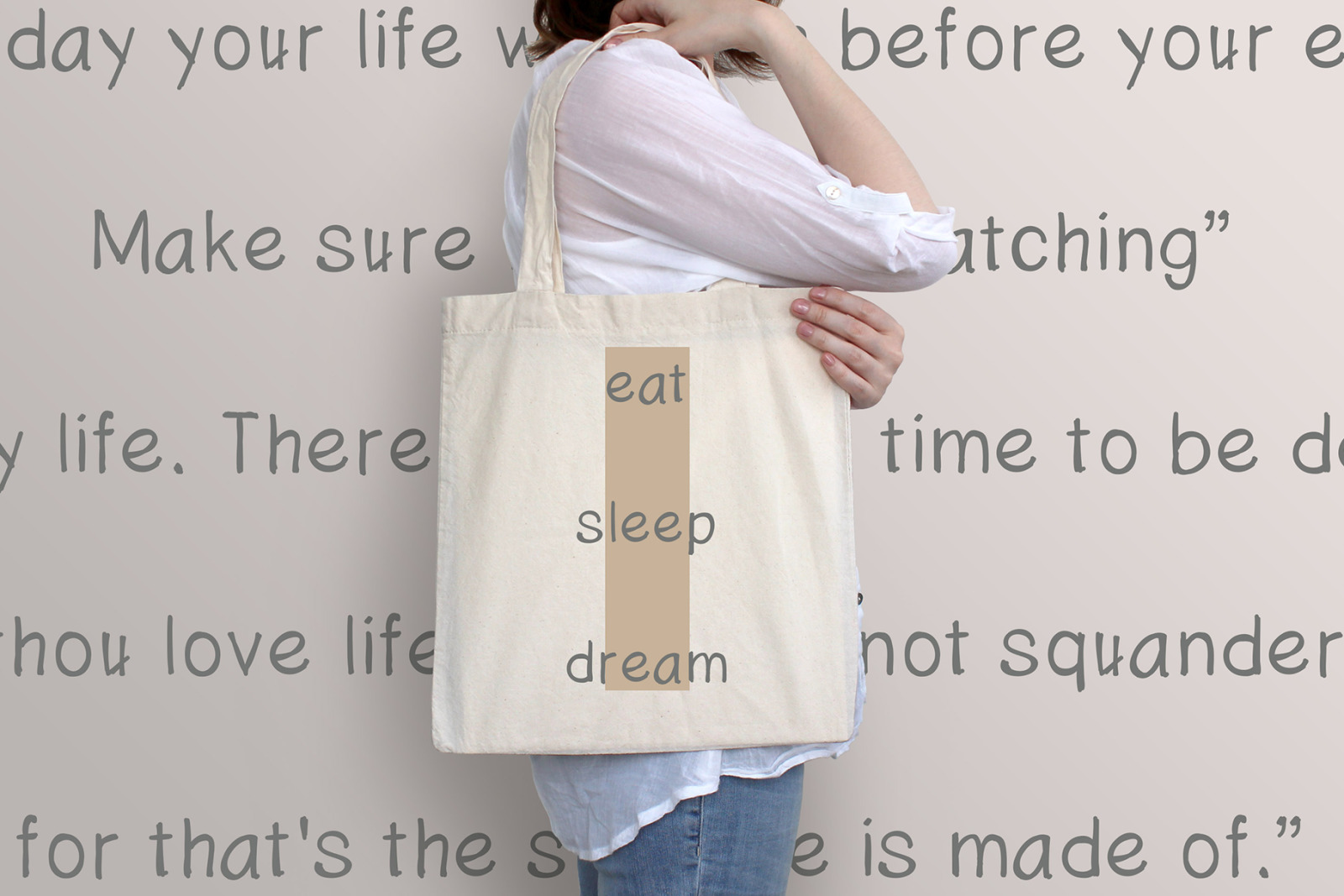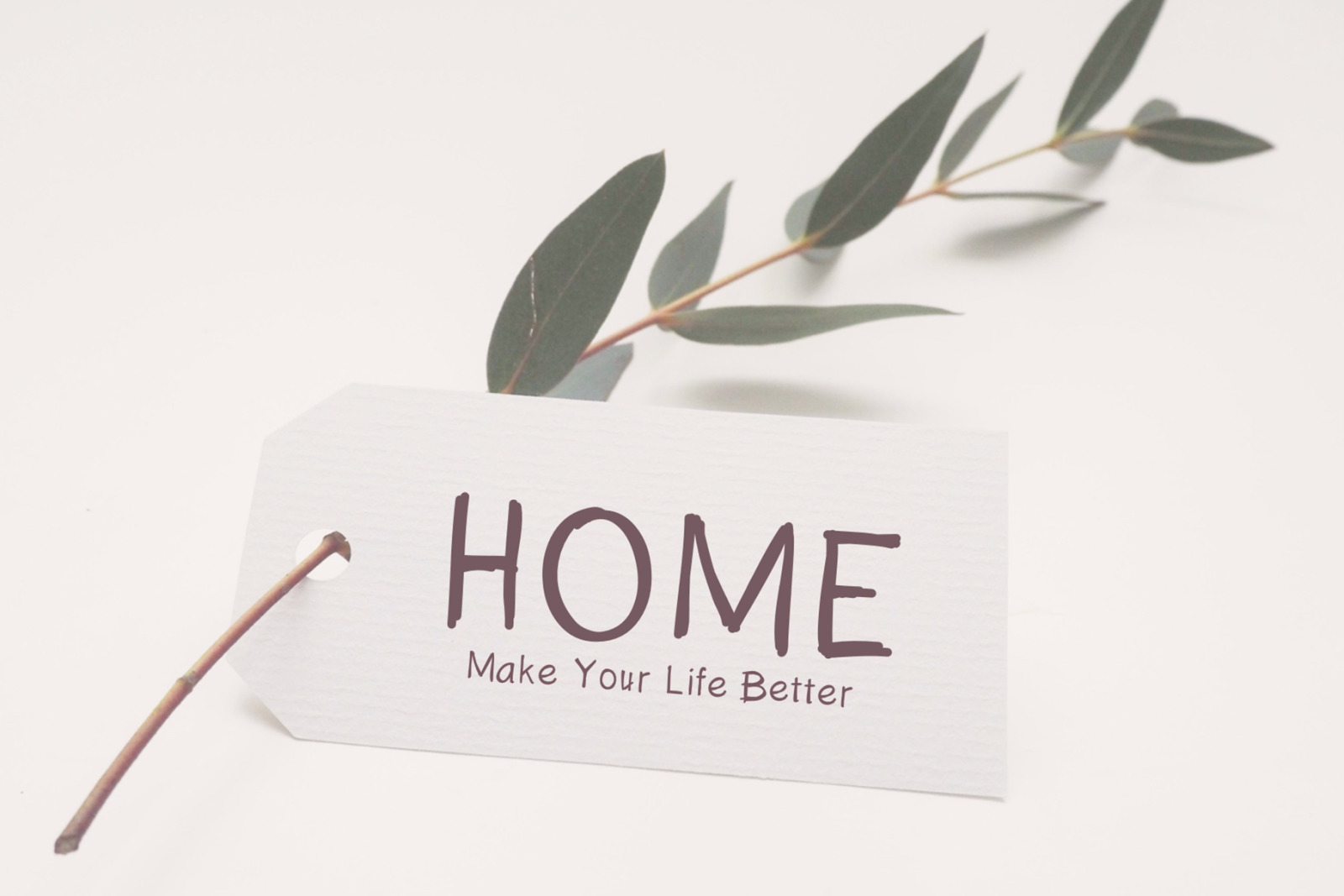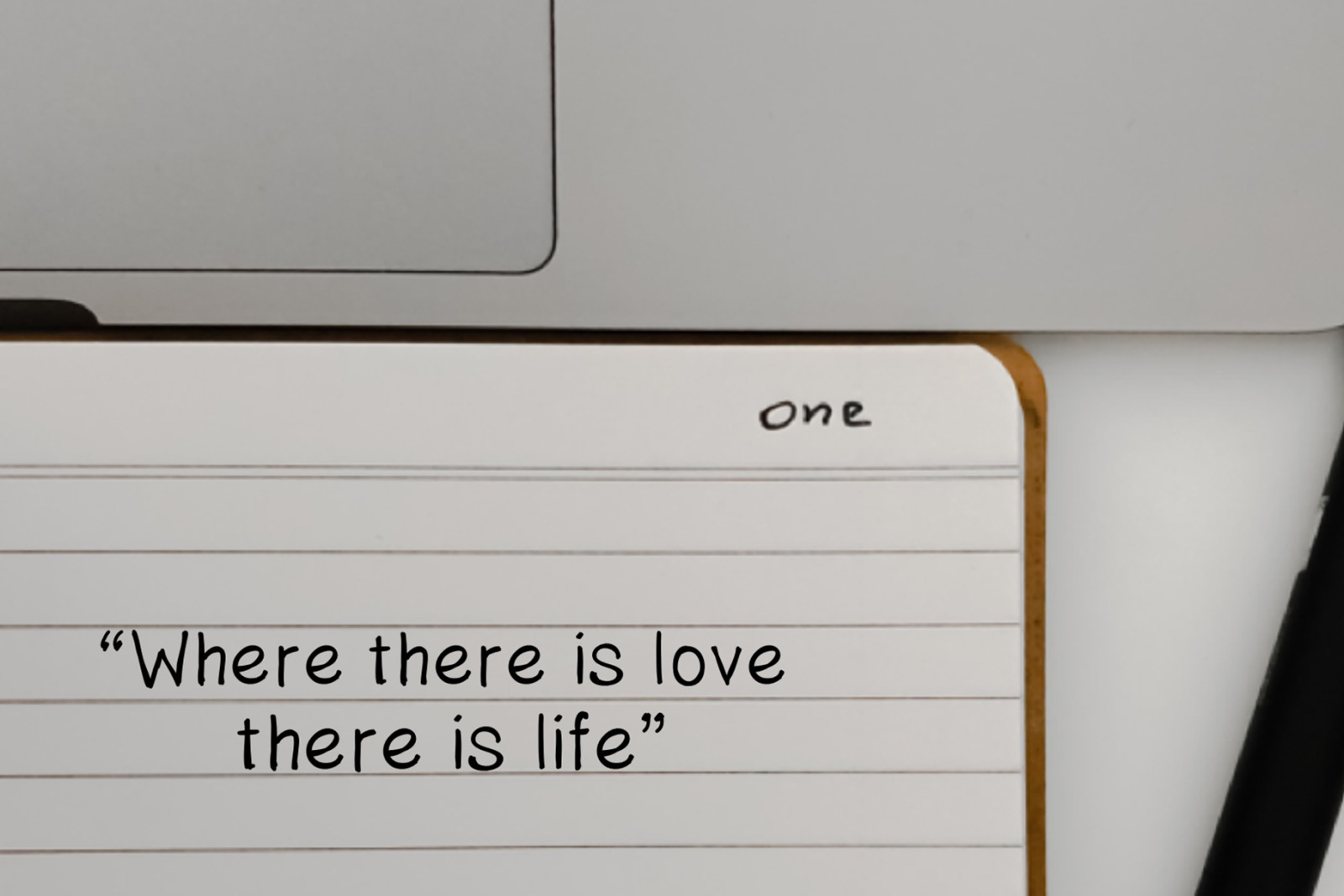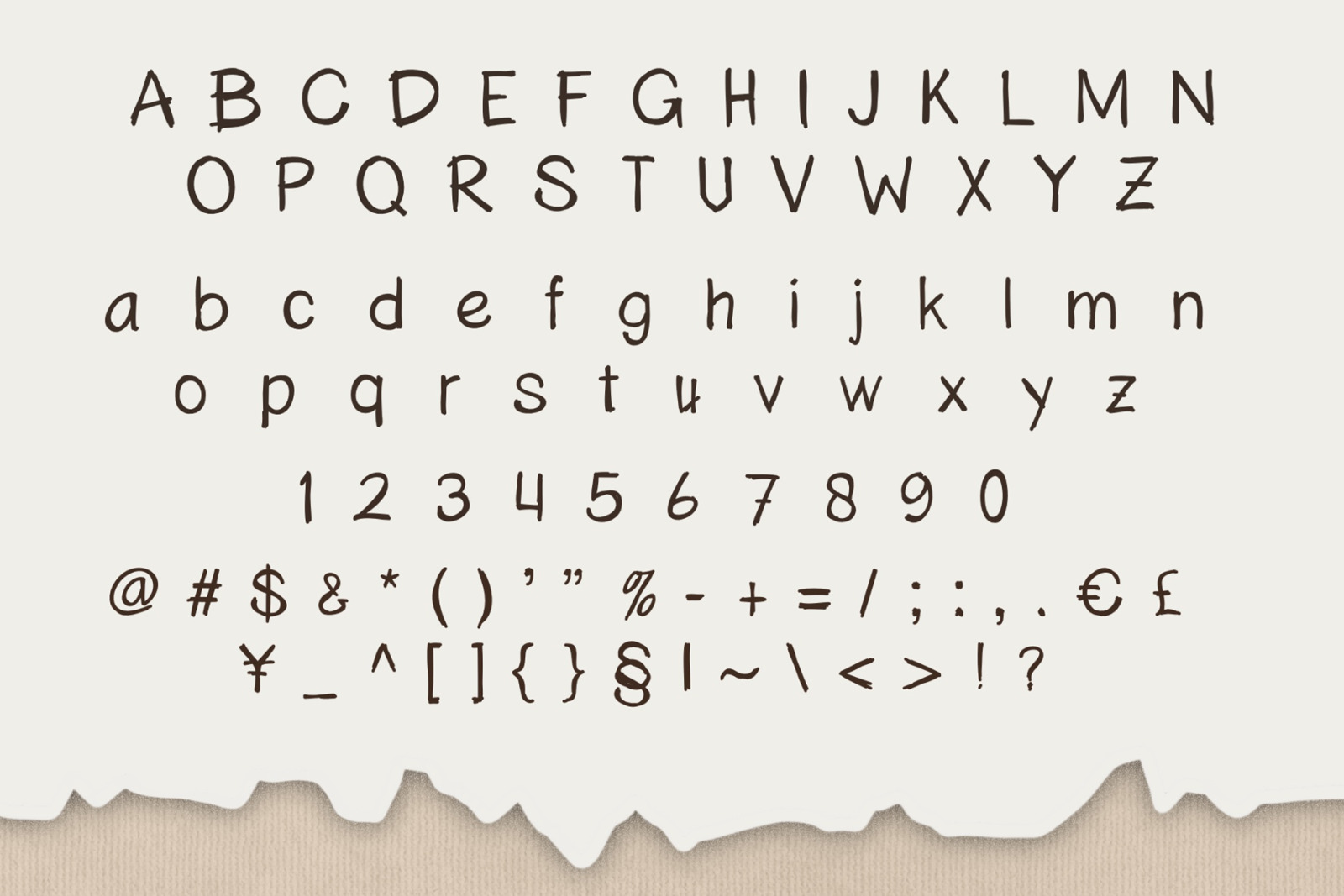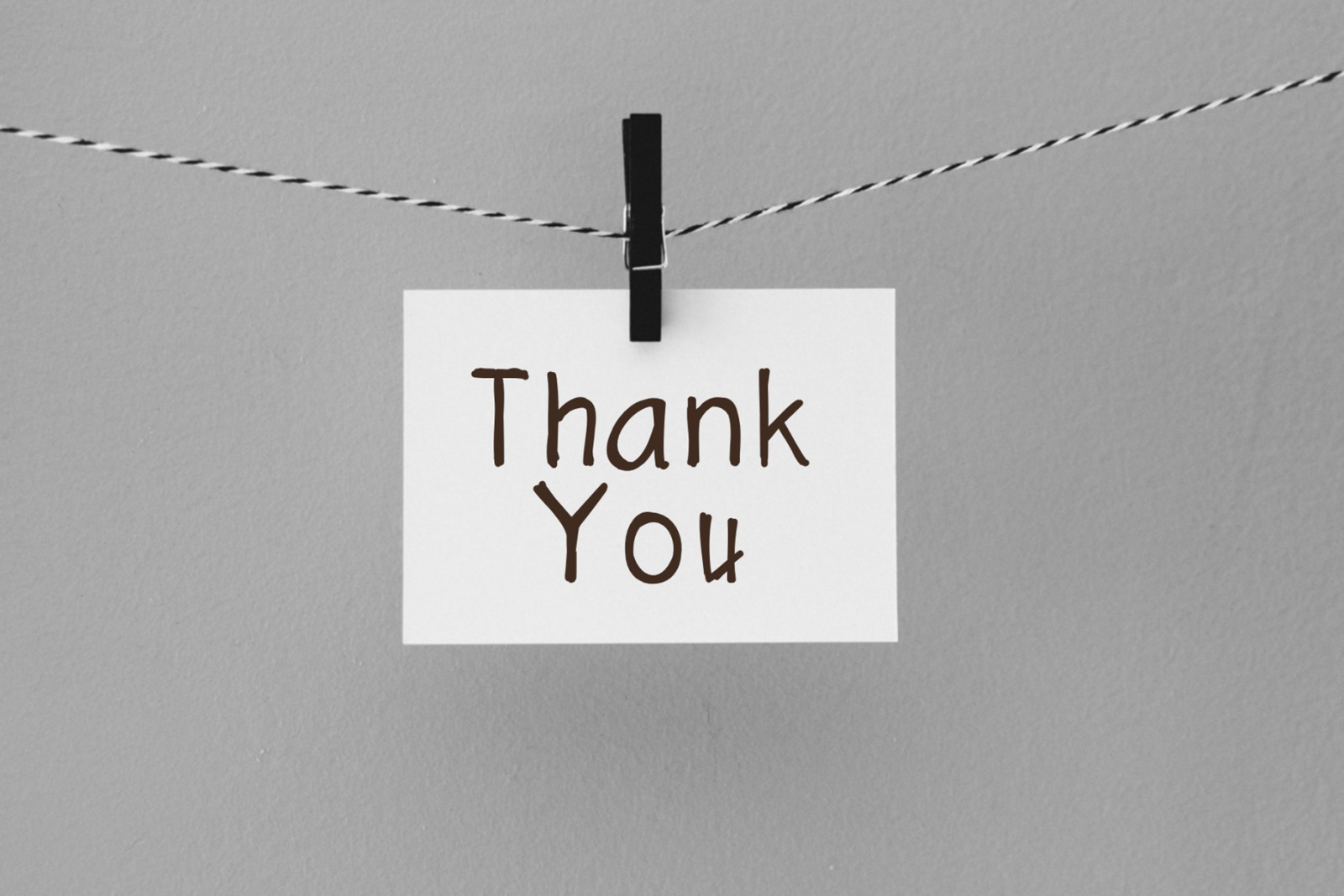
Zoya Font
say hi to a new handwritten typeface his name is ZOYA, it is original handwritten font. This article is good for a variety of designs, such as: packaging, advertising, crafting, merchandise, banner posters, titles, book covers, tote bags, and other designs. make your design more natural with zoya.